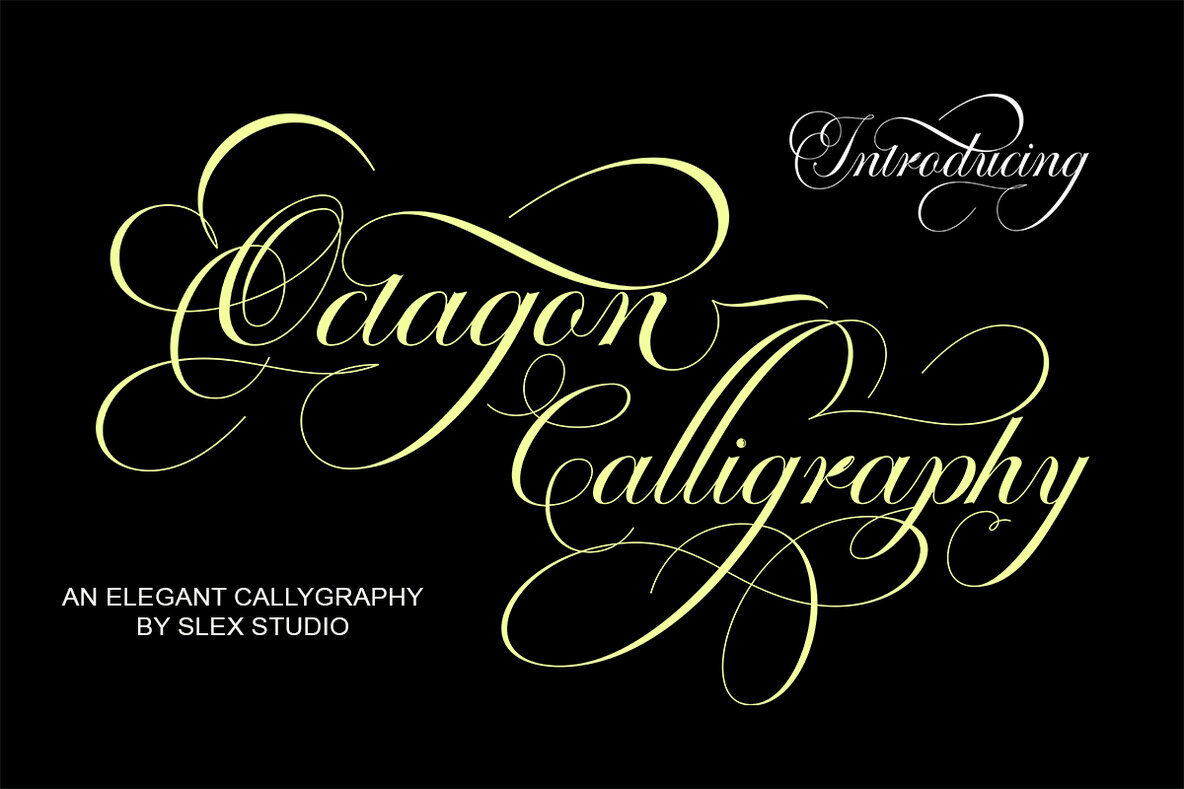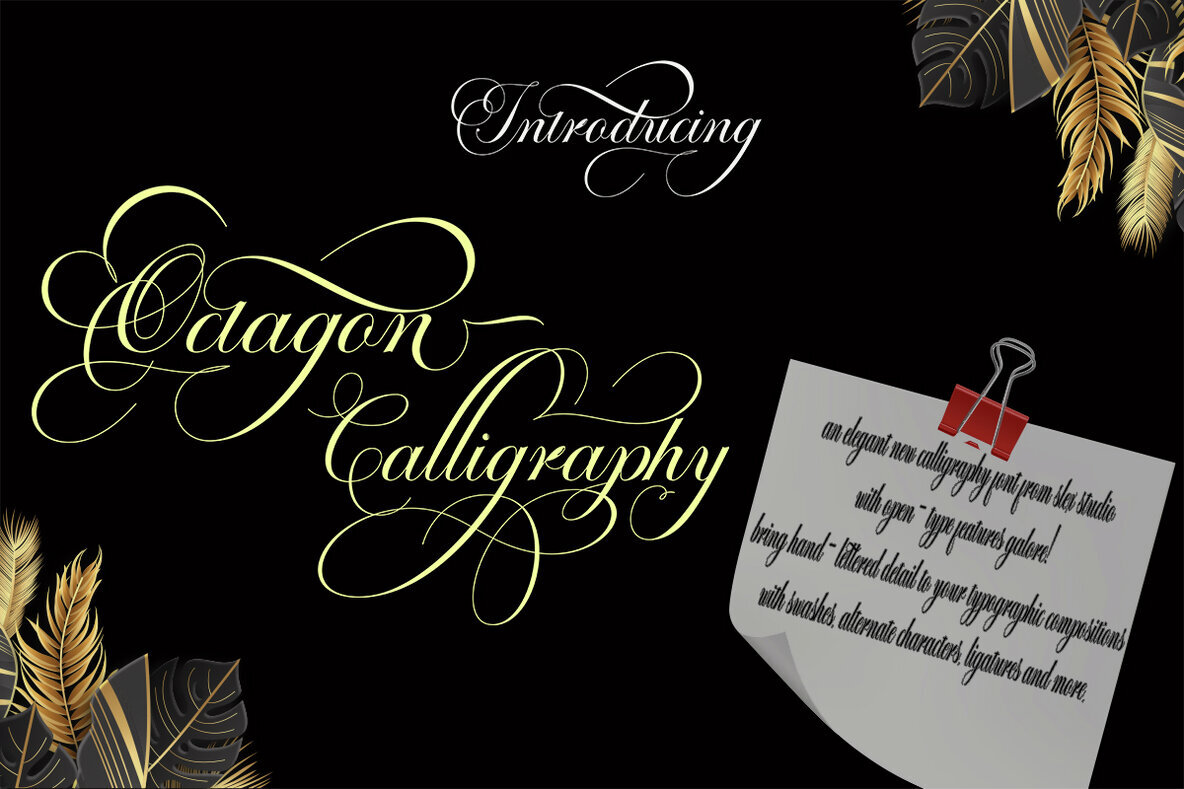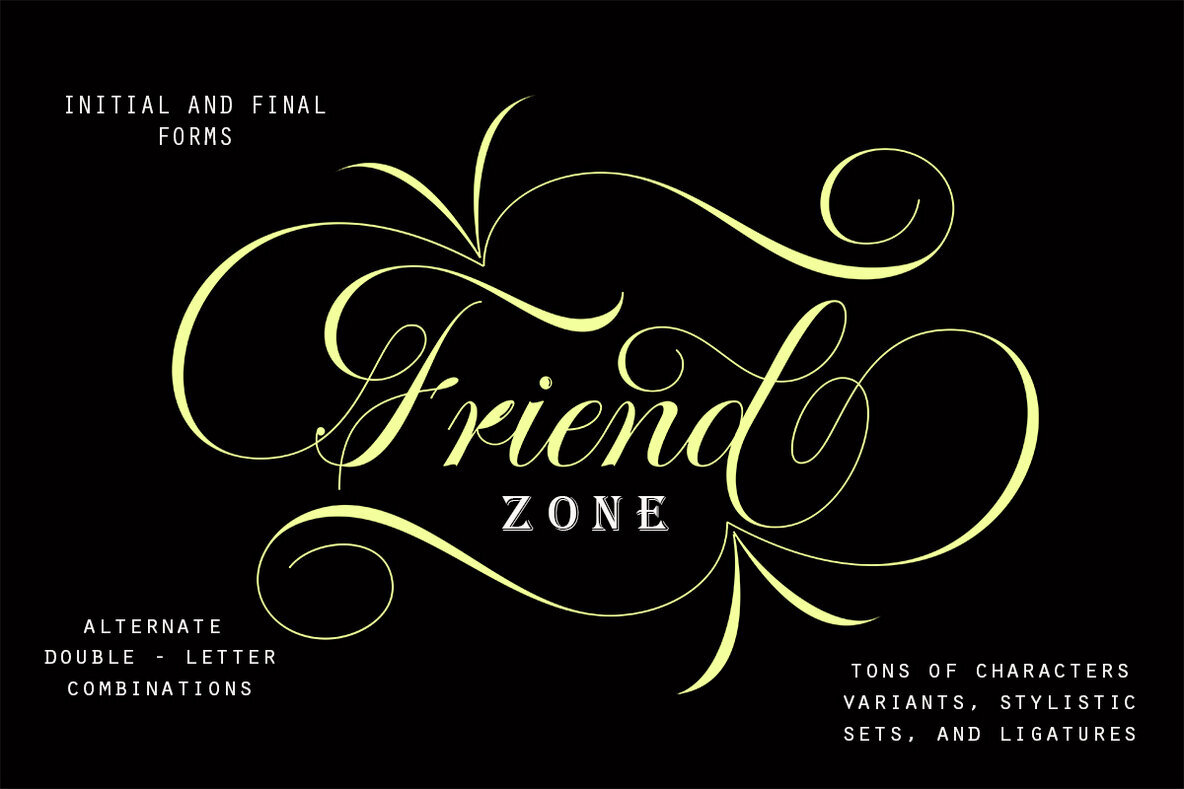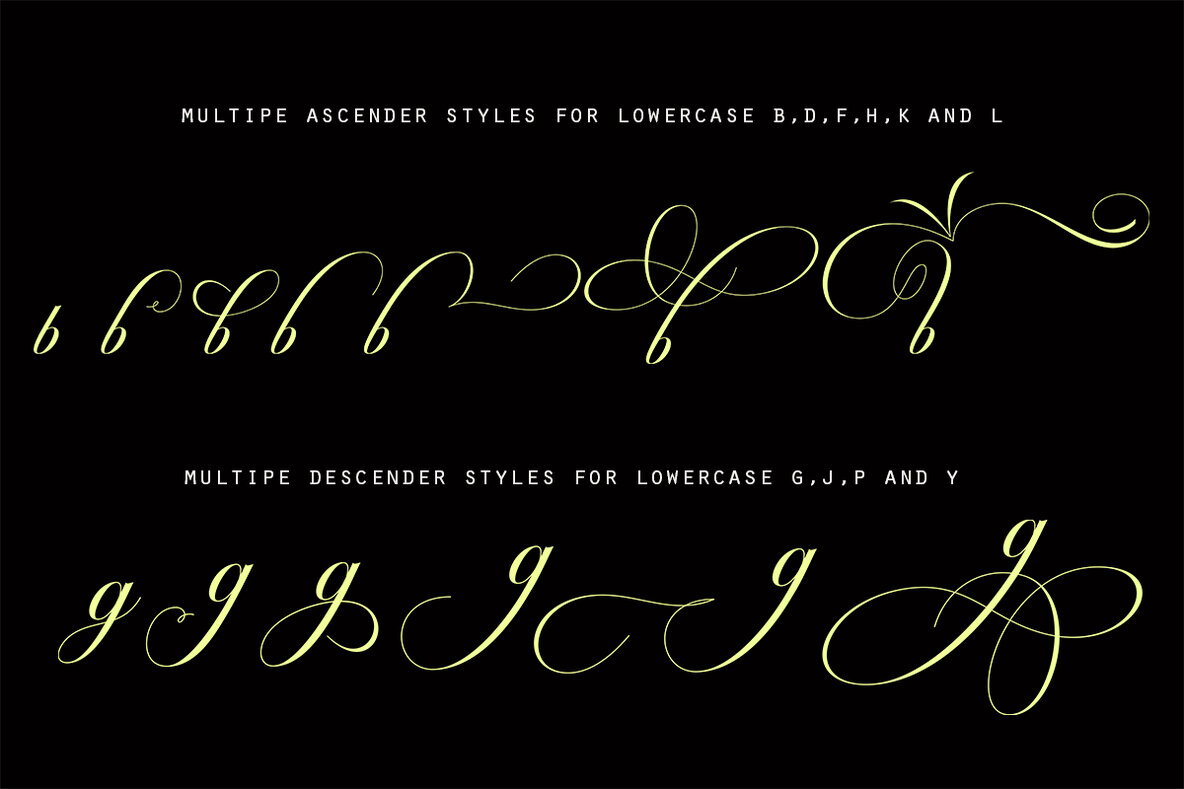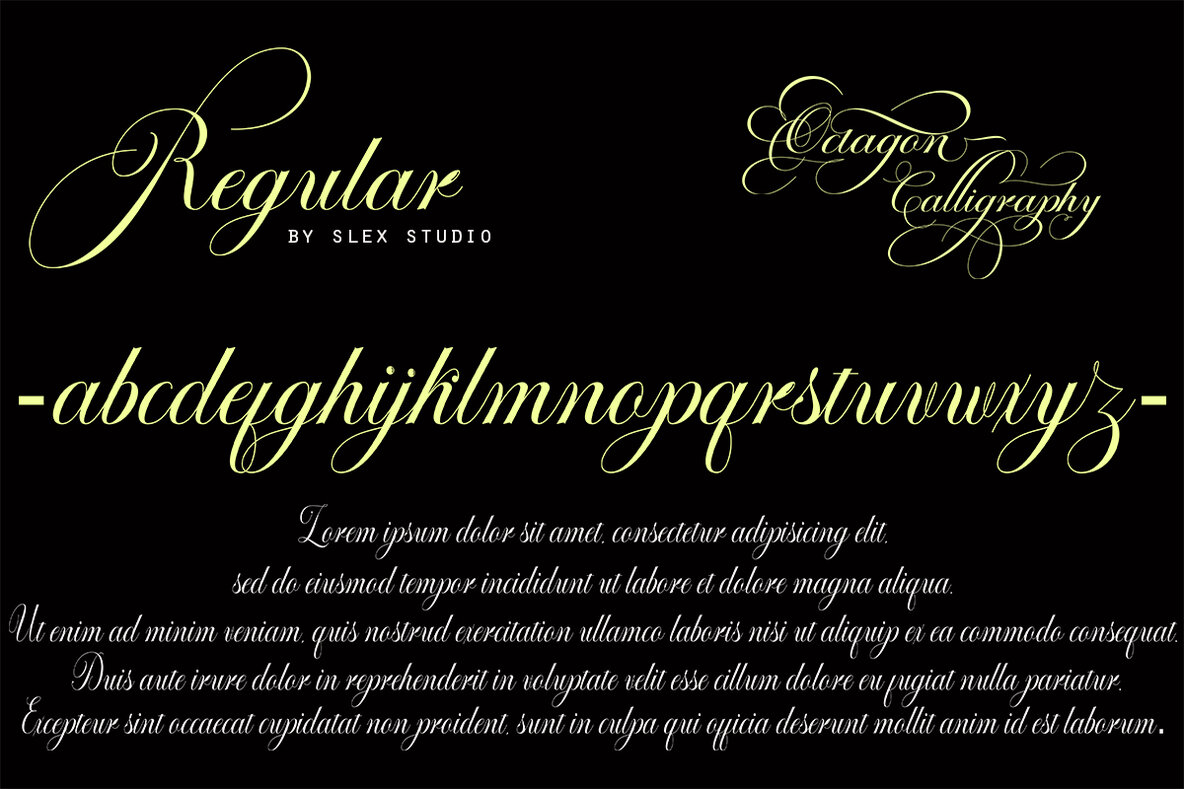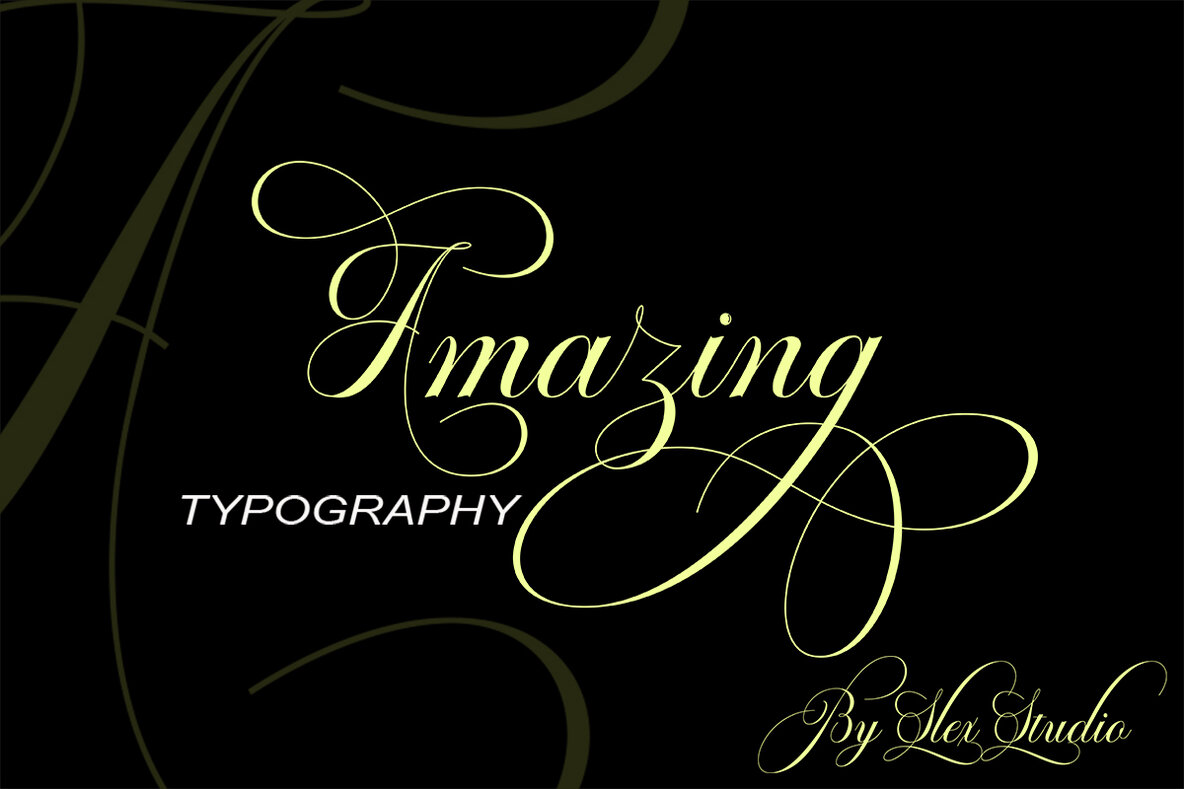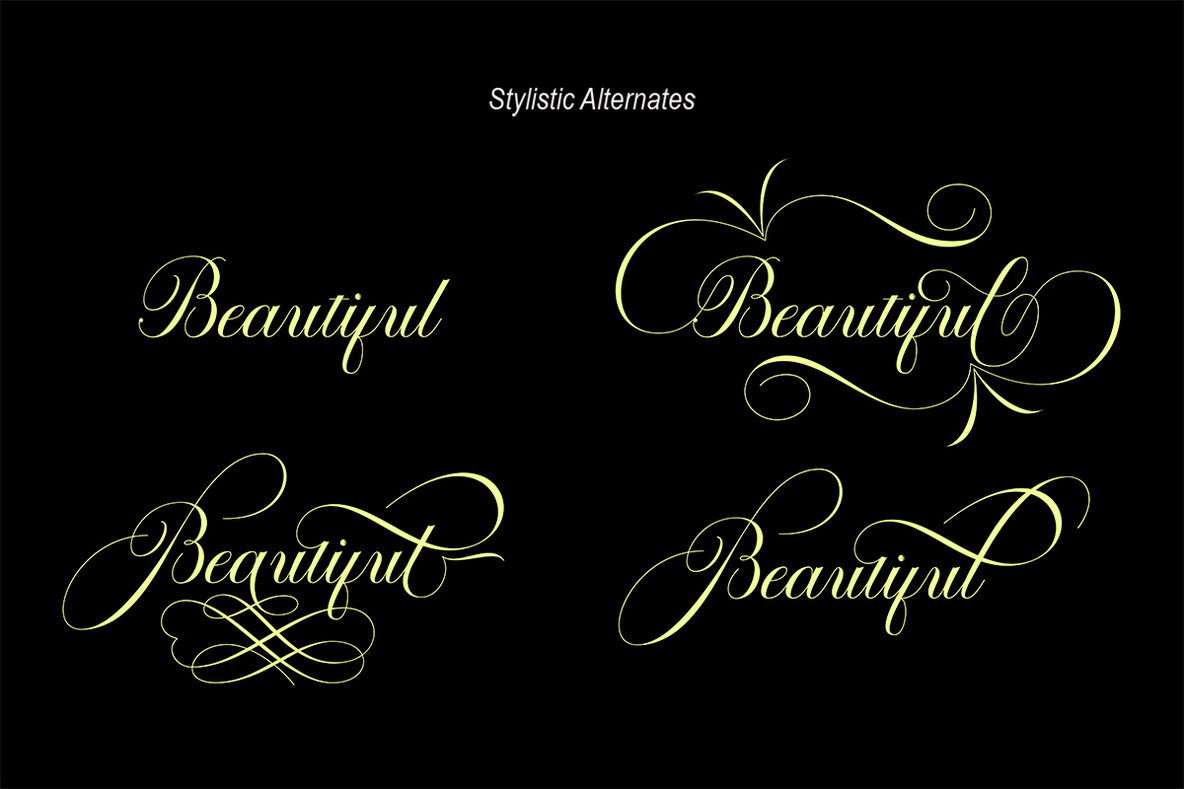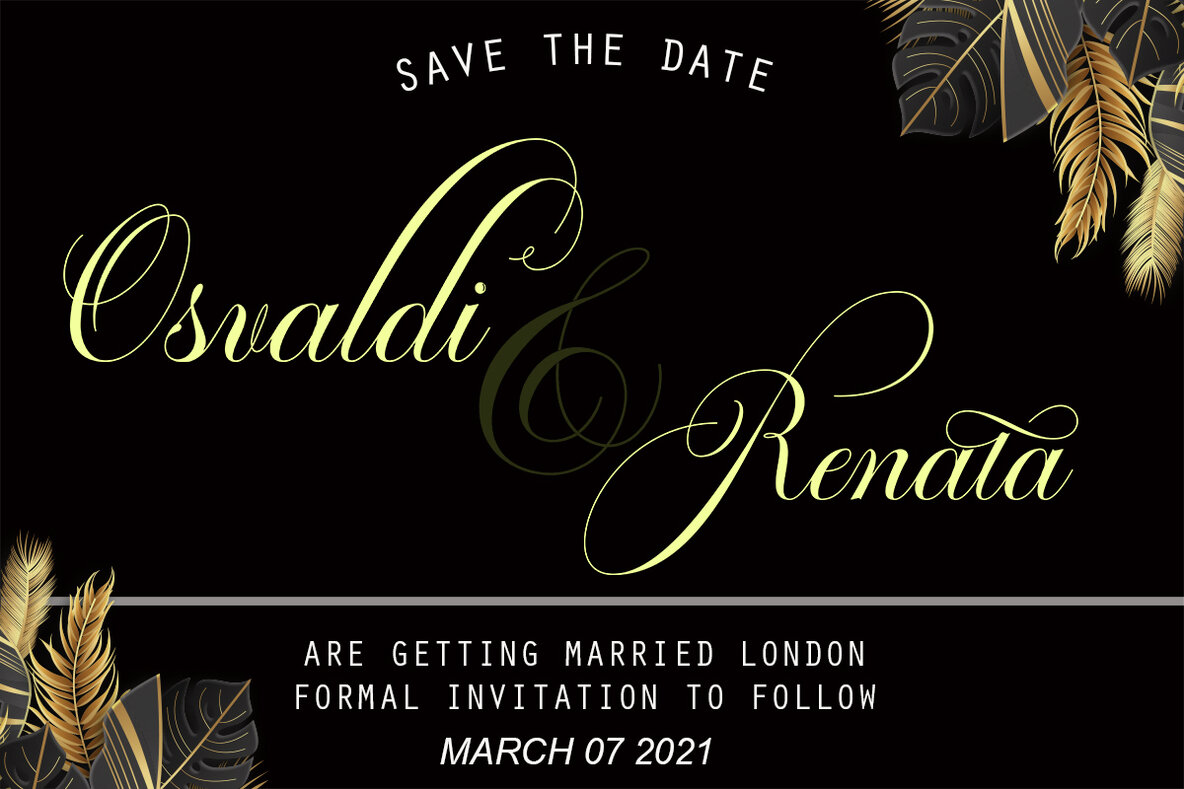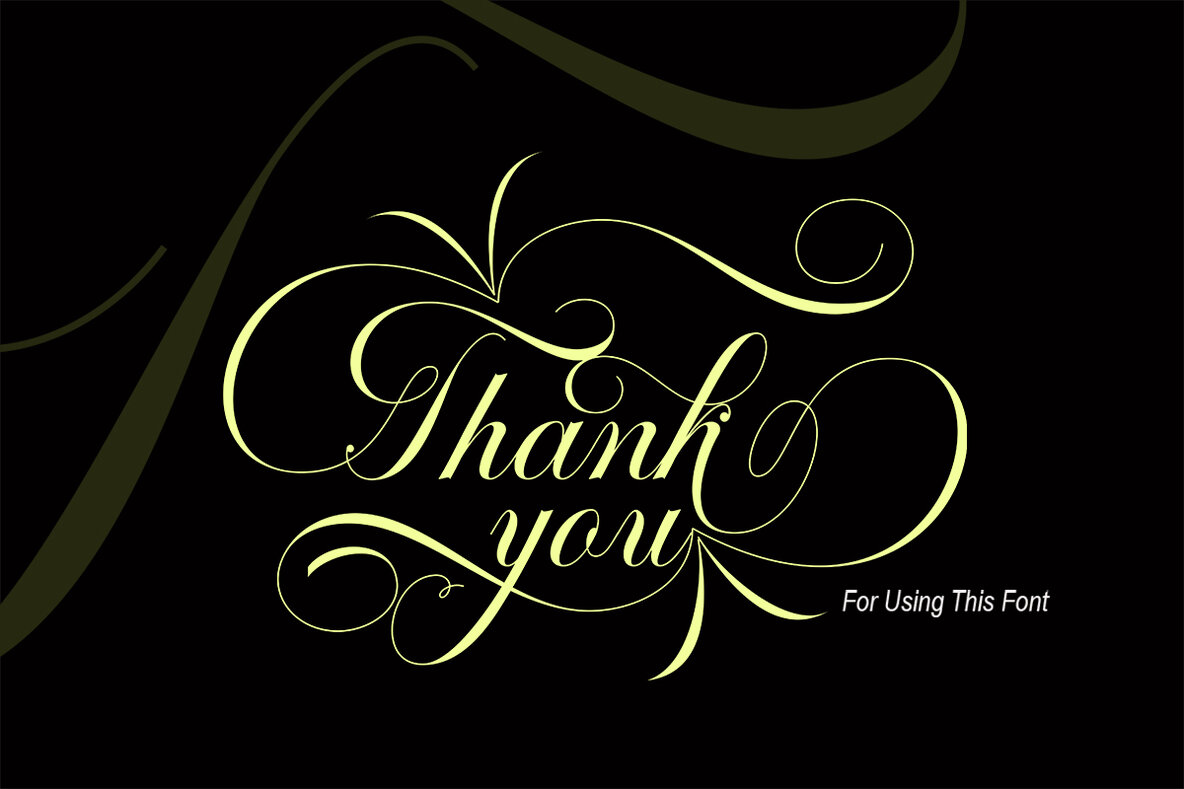
Octagon Calligraphy
Octagon Calligraphy is a font that combines classic calligraphy with a touch of elegance, inspired by the handwriting of women and ancient manuscripts. Its careful design ensures harmony, making it the perfect choice for wedding media, book covers, greeting cards, logos, branding, business cards, and certificates. This typeface is ideal for any design project that requires a classic, formal, or luxurious feel. Embrace the richness of OpenType features in Octagon Calligraphy, enhancing your work with elegance and creativity. This font is user-friendly and comes with multilingual support and ligatures, allowing for diverse and dynamic usage across projects.Octagon Calligraphy: A Classic Typeface with Modern Elegance